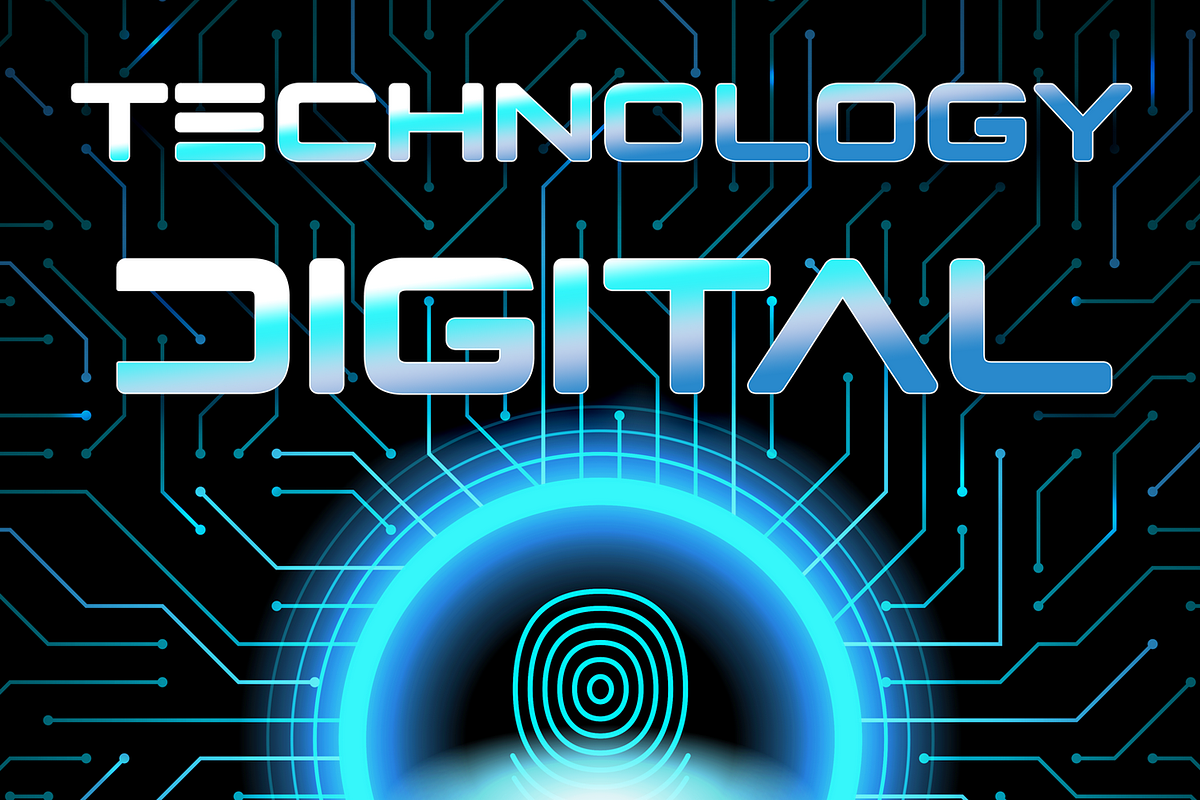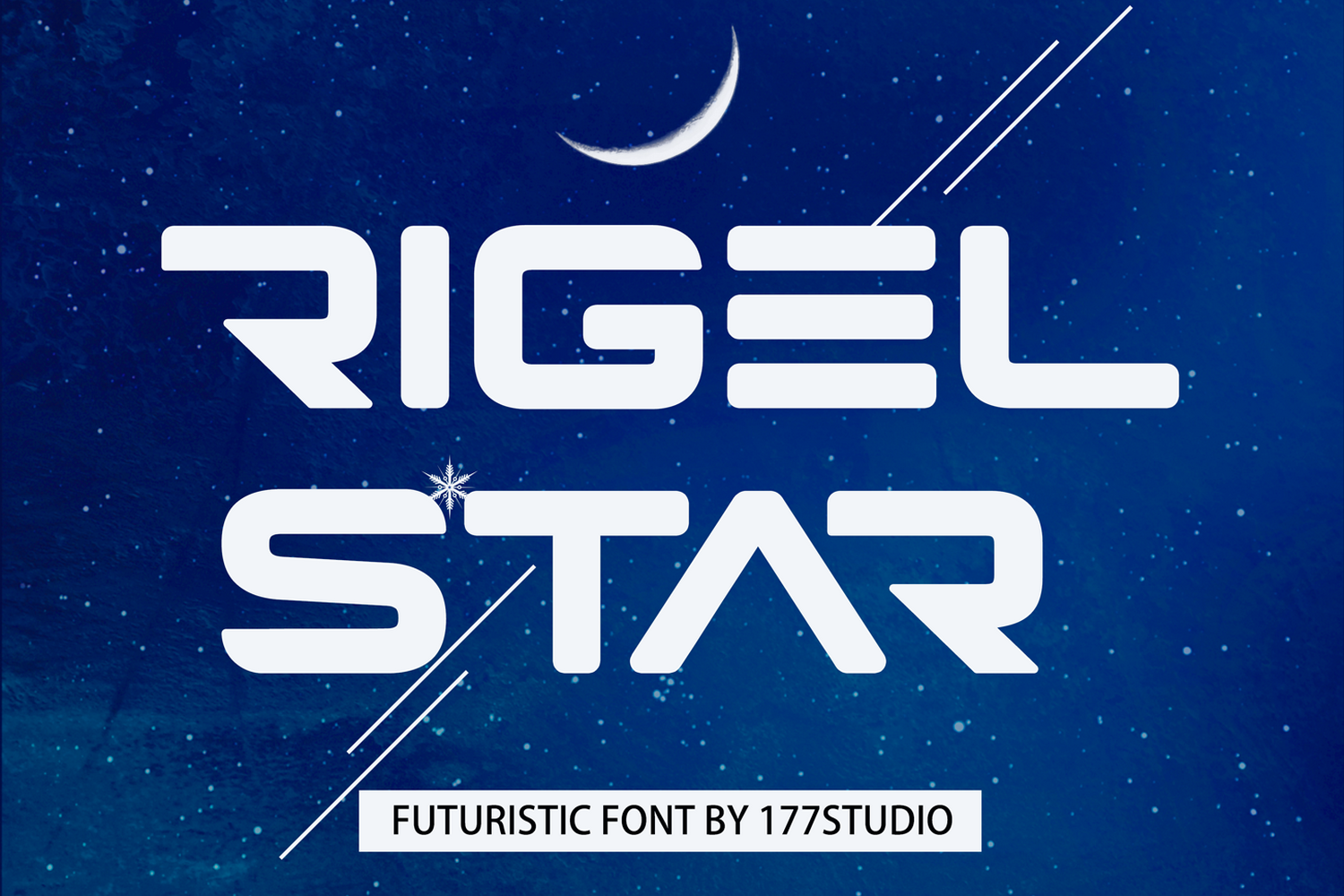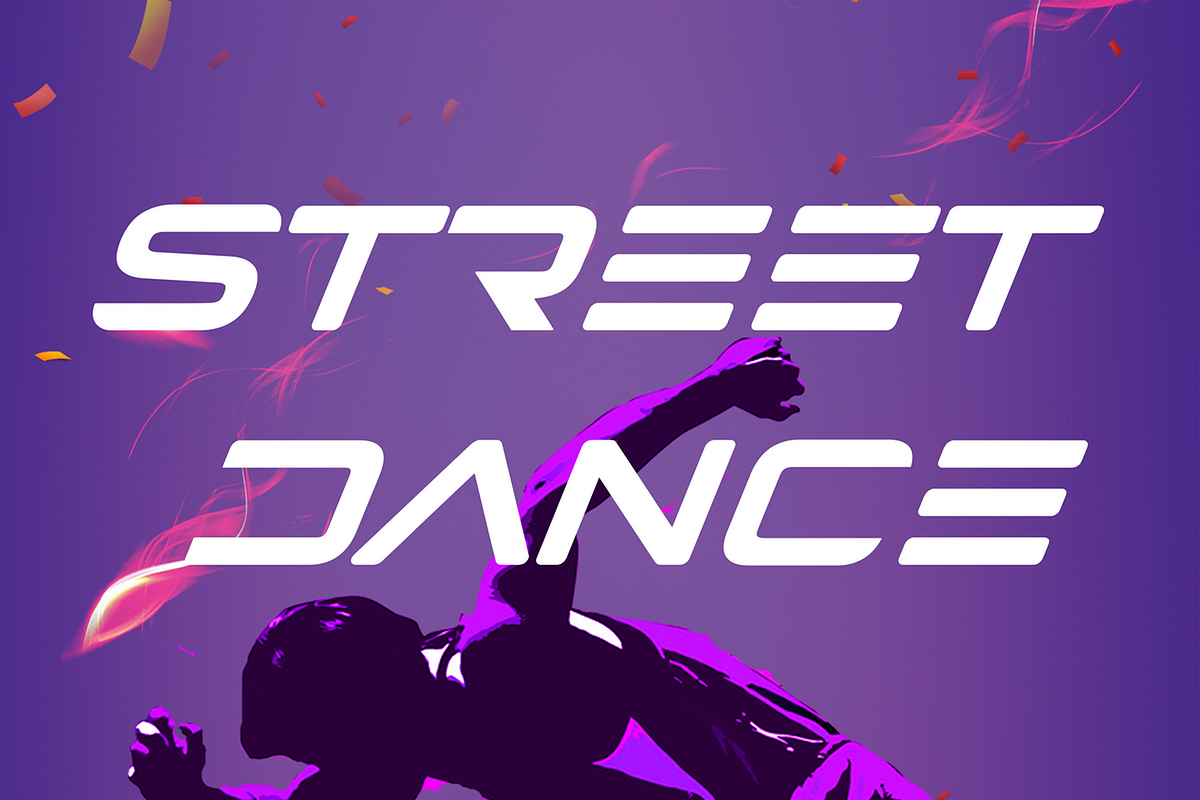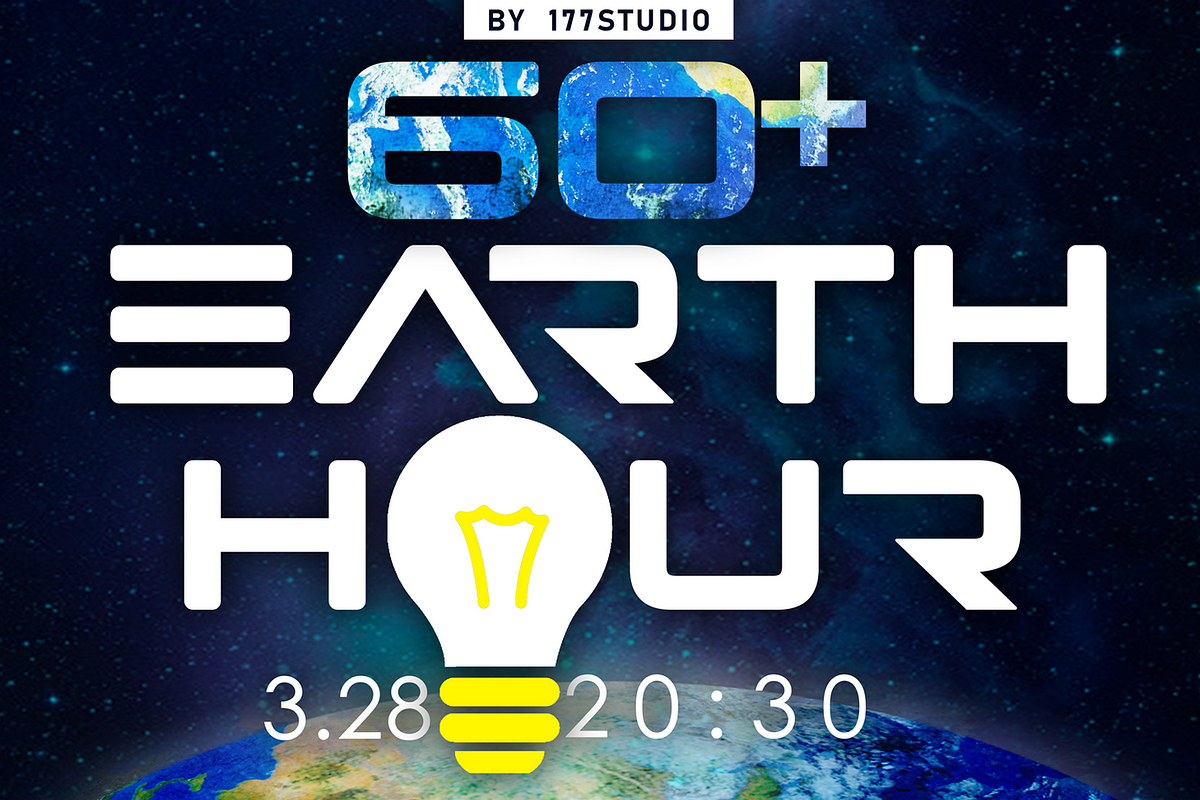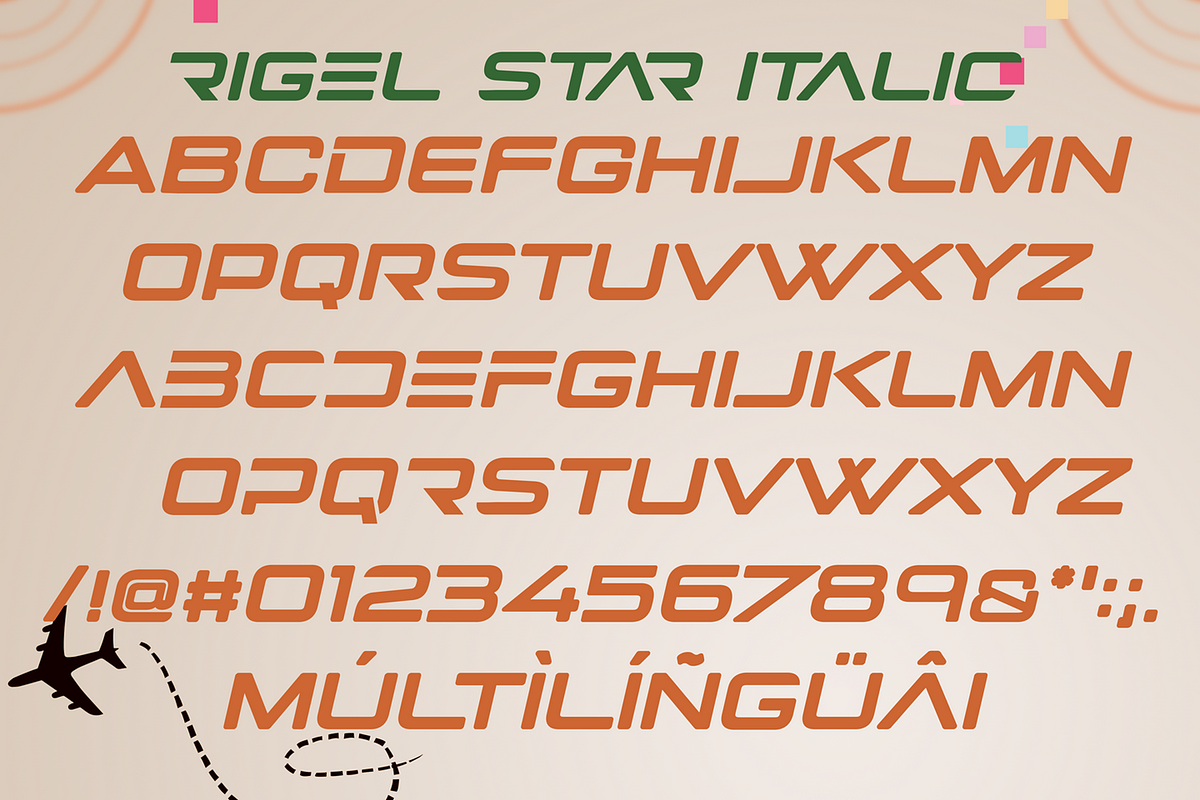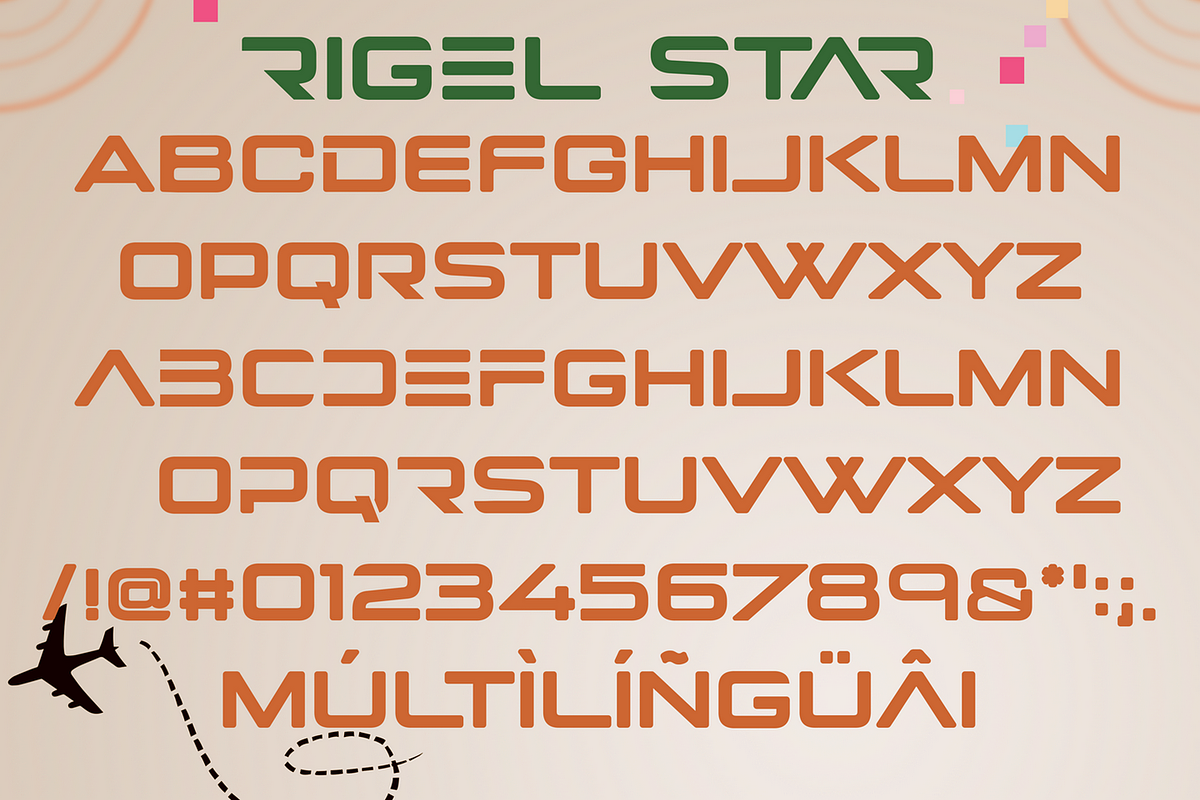
Rigel Star - Futuristic Font
Rigel Star is a futuristic font with alternate letters. Rigel Star is font which helping to create futuristic hi-tech atmosphere and style. It is good looking as header and as text both. Use it in your projects in such areas as robots & androids, hi-tech, future, virtual reality, space and many others.